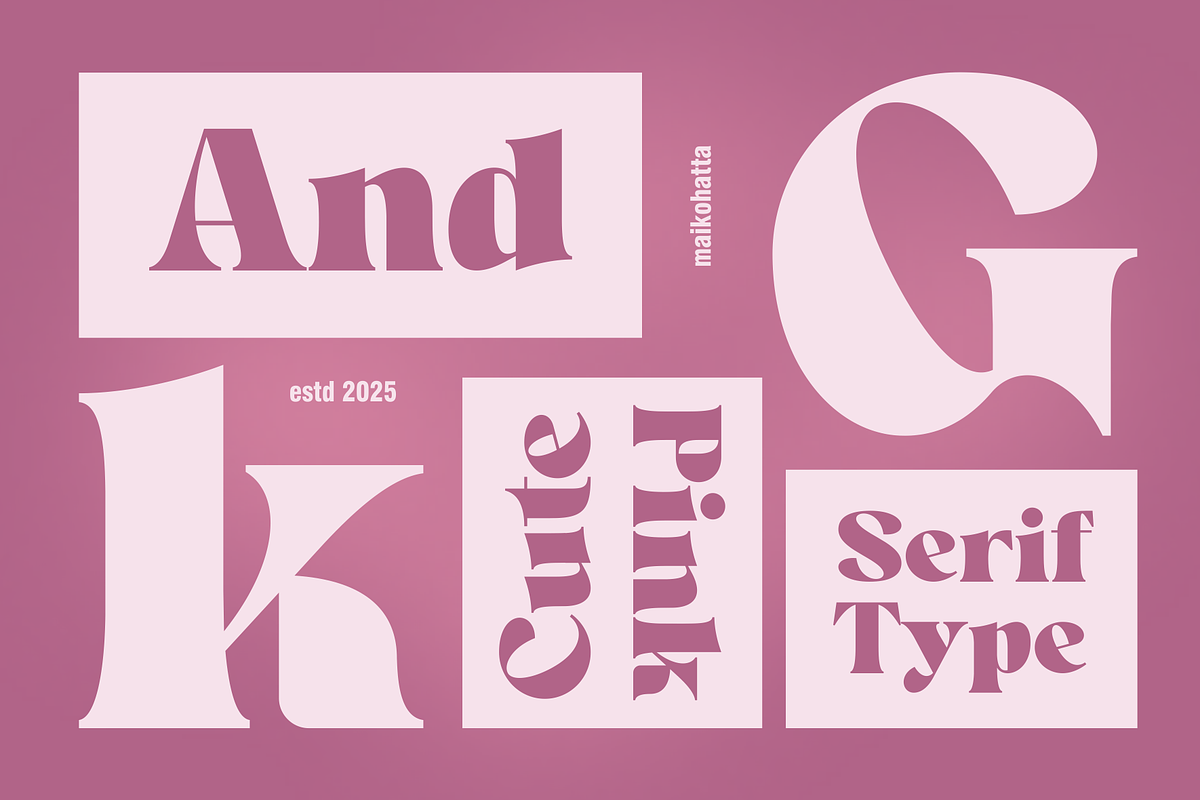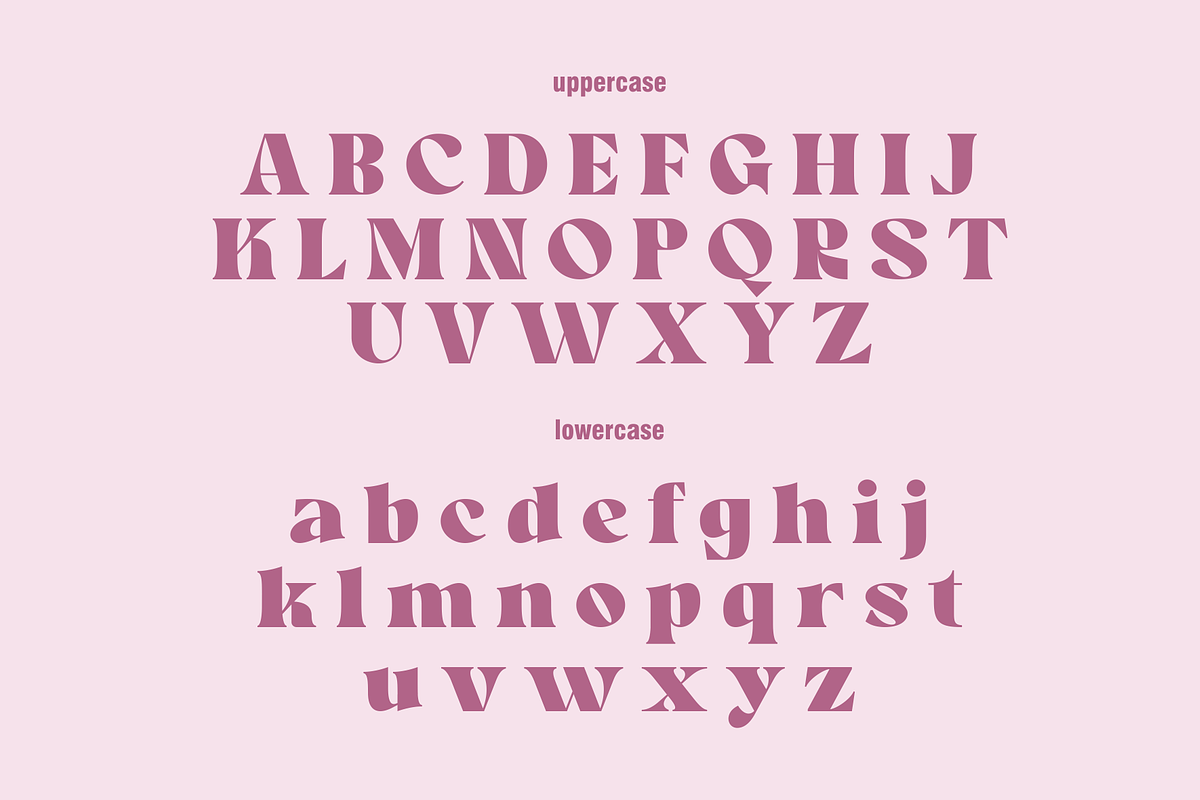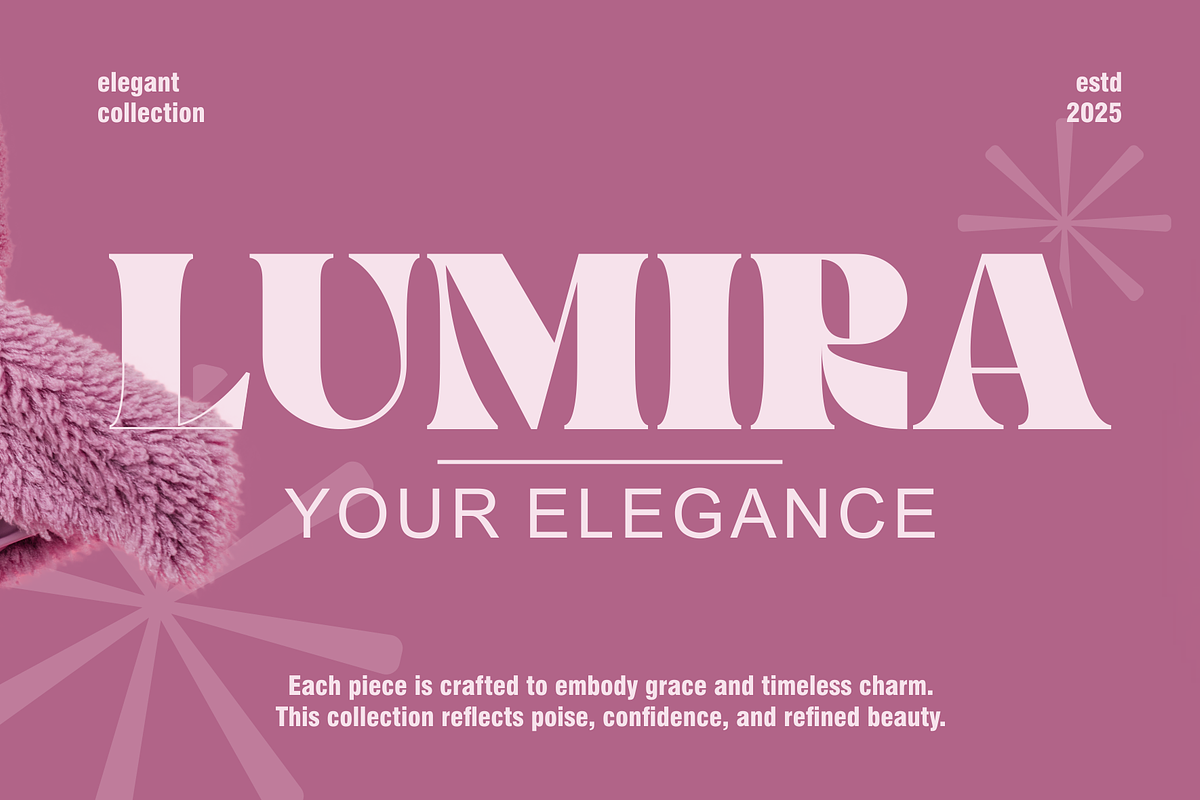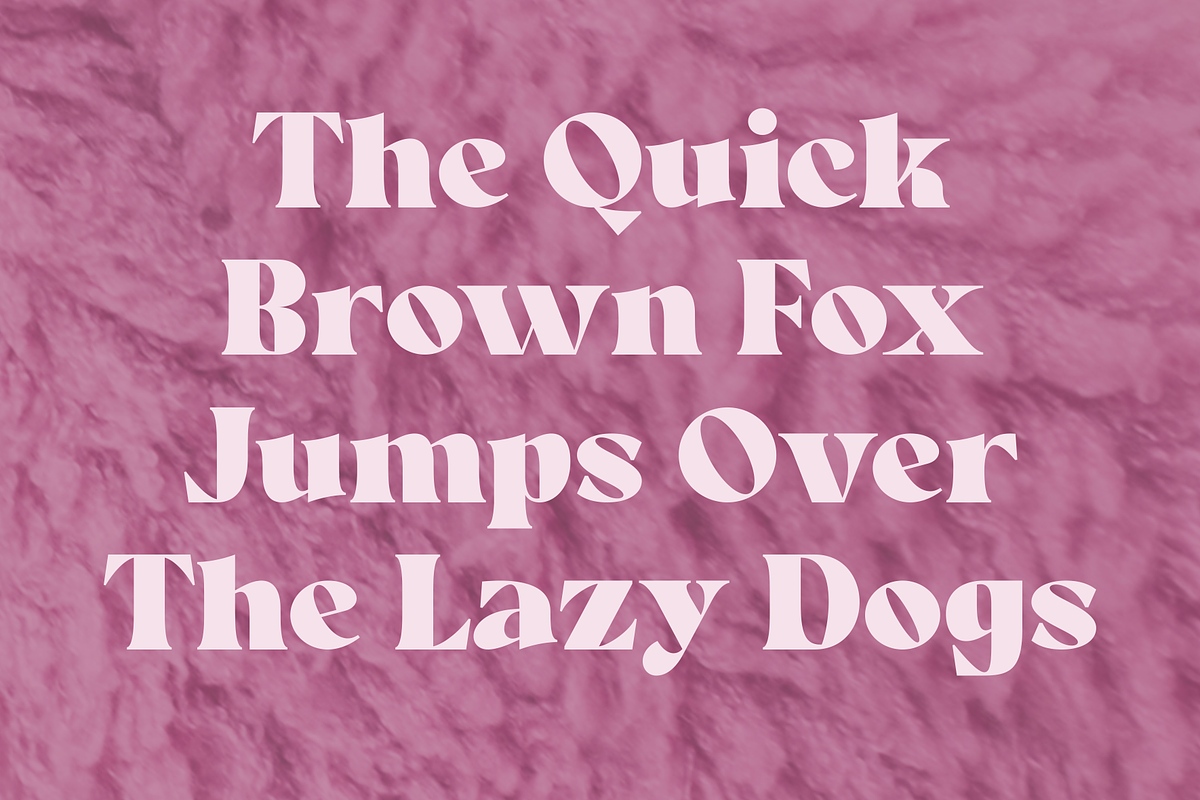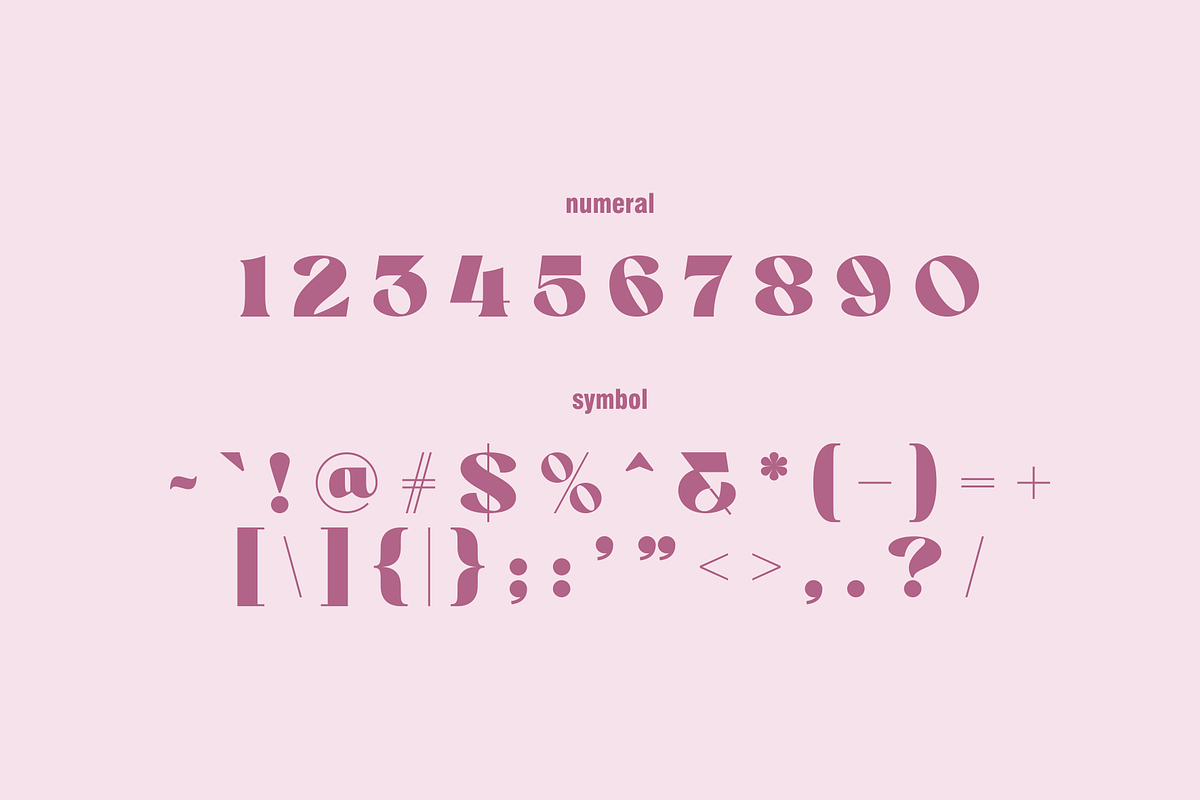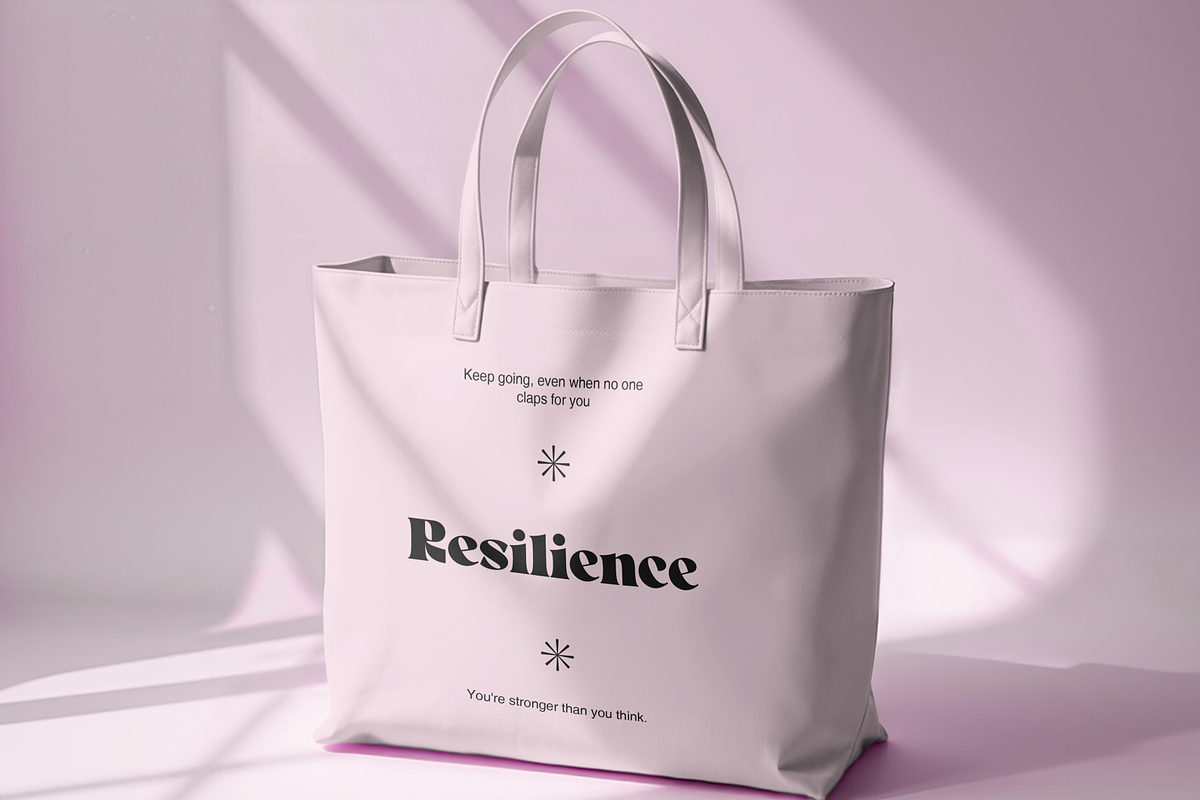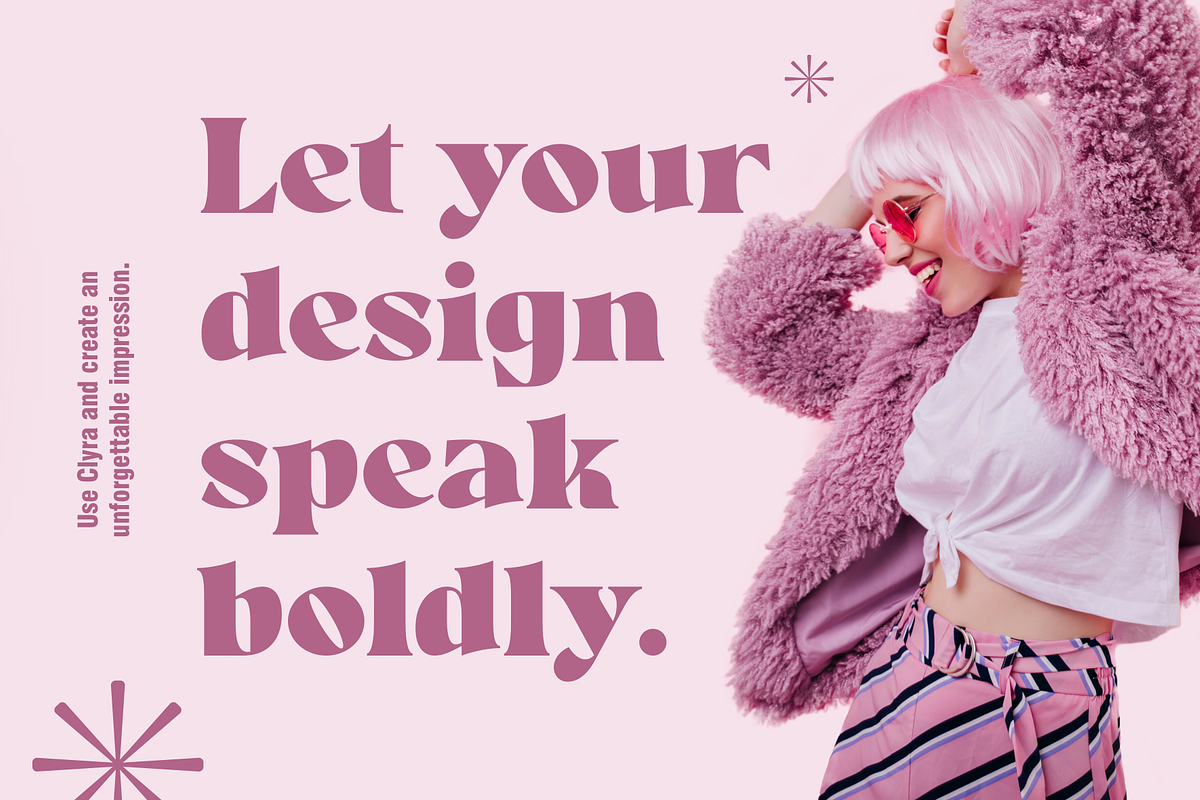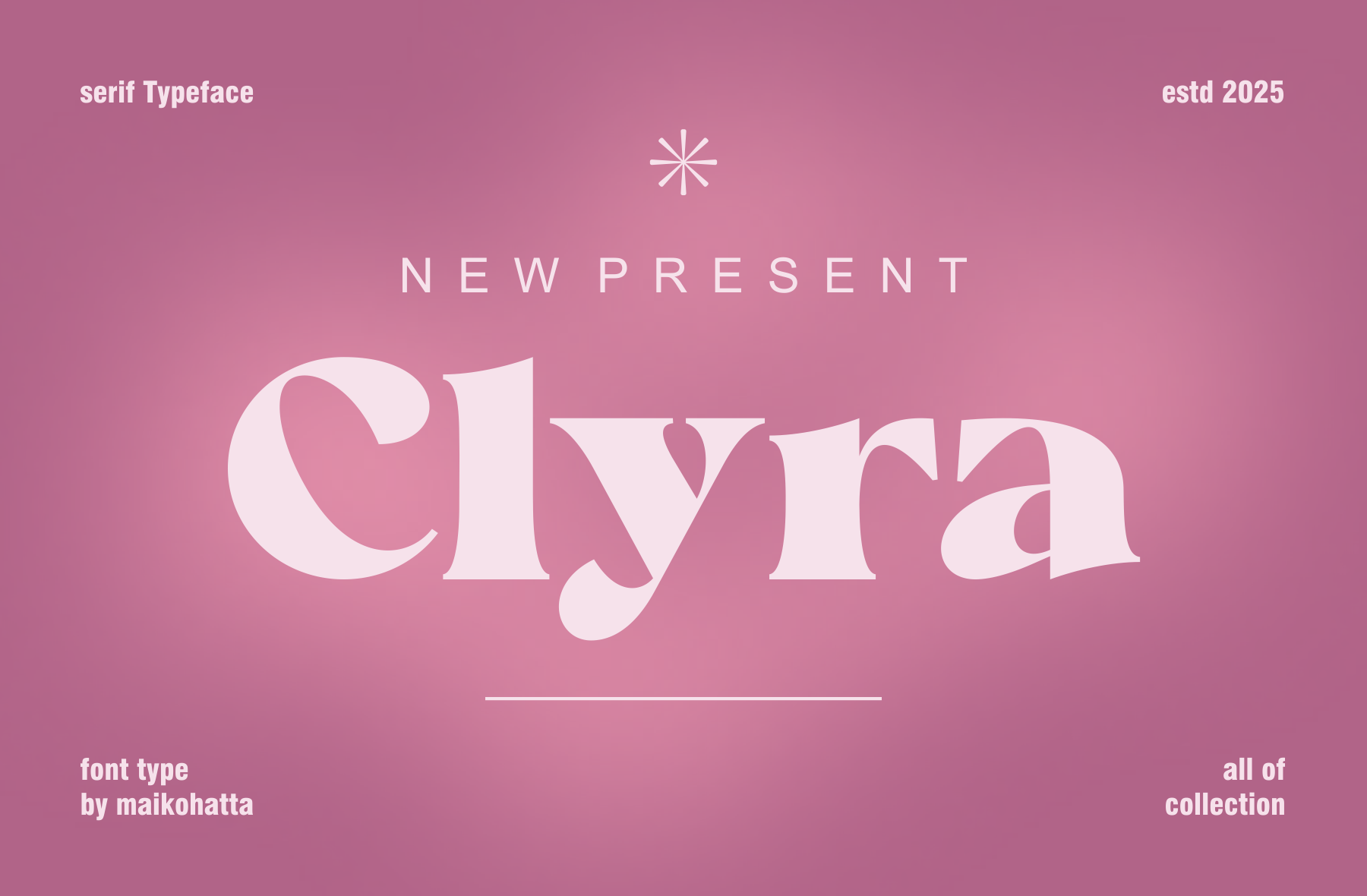
Clyra - Elegant Serif Typeface
Introducing our new product Clyra - Elegant Serif Typeface
Introducing Clyra, an elegant and sophisticated serif typeface crafted to bring a touch of refinement to any design. With graceful curves, high contrast strokes, and timeless proportions, Clyra is perfect for editorial use, branding, wedding invitations, logo design, and luxury packaging.
This typeface blends classic serif elements with a modern flair, delivering both beauty and readability. Whether you're designing a magazine cover or a fashion label, Clyra exudes charm and confidence.
Brand identities Fashion and lifestyle blogs Invitations and stationery Elegant headers and magazine layouts